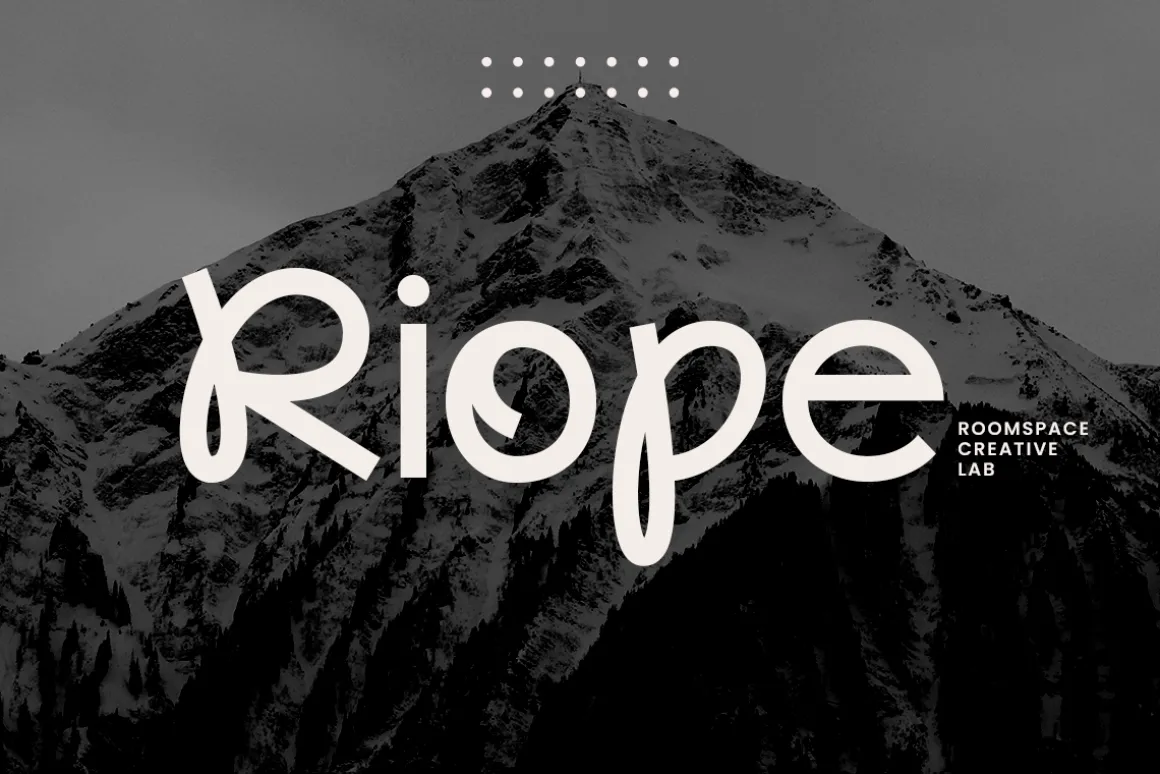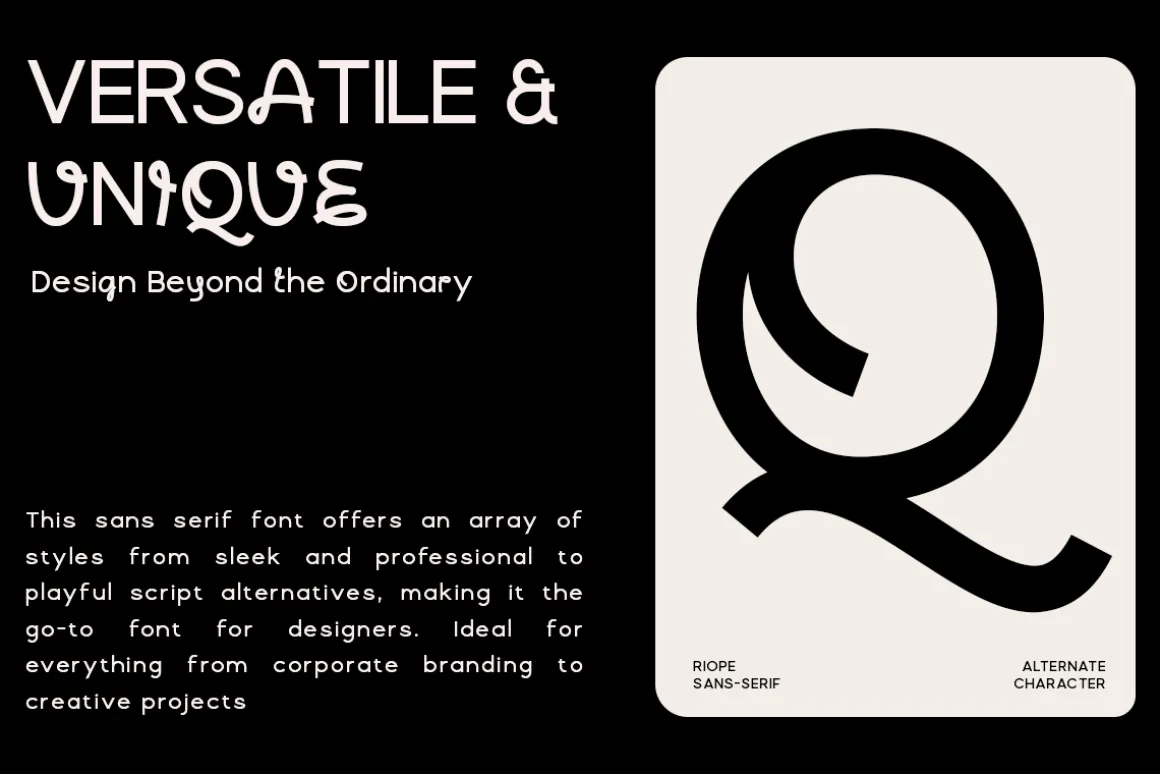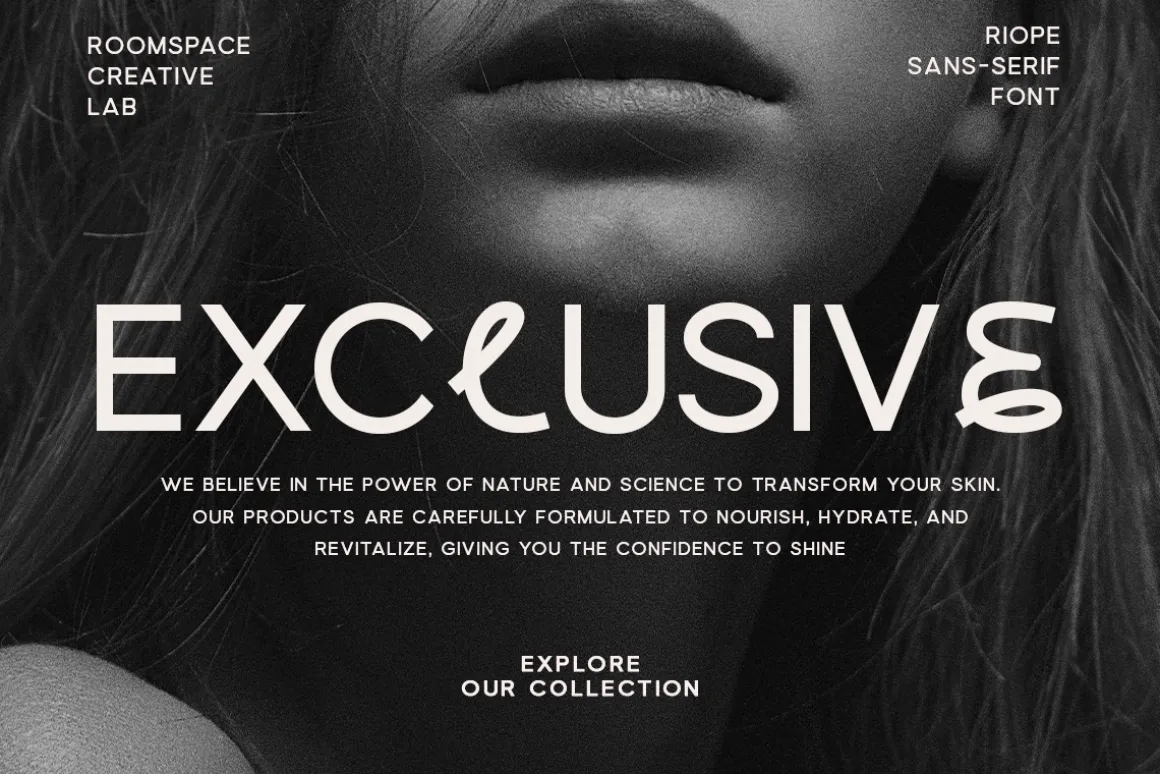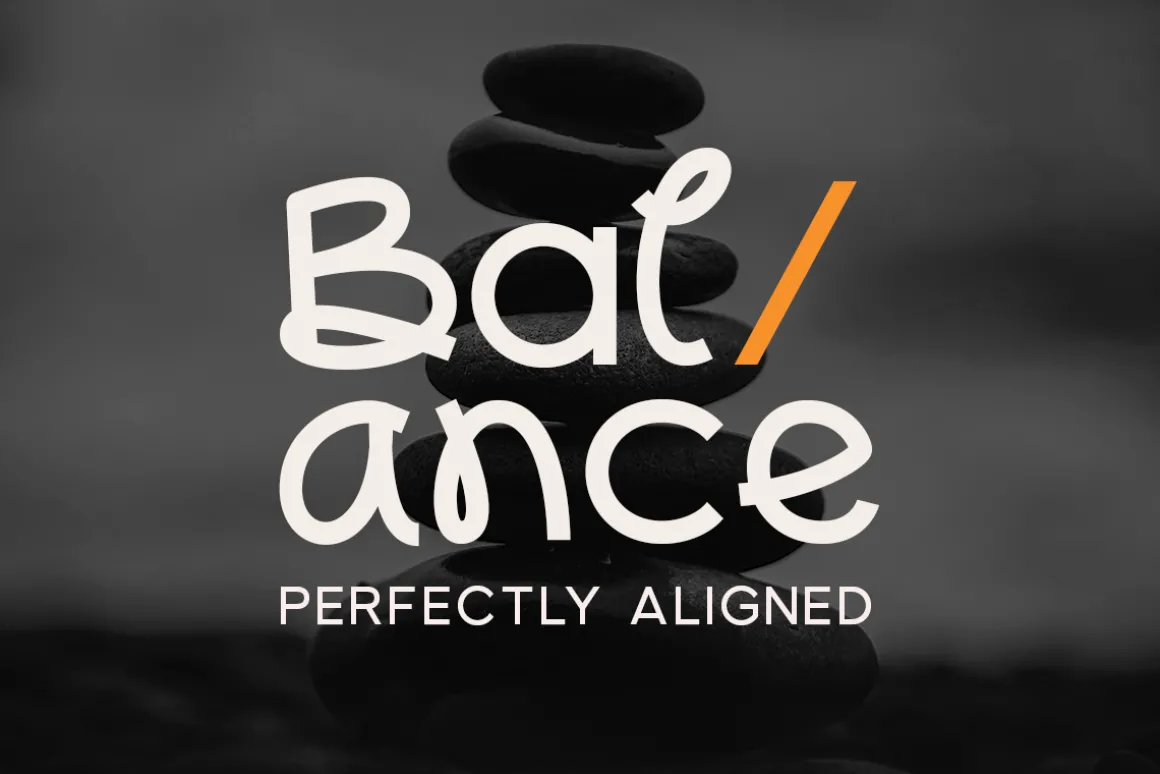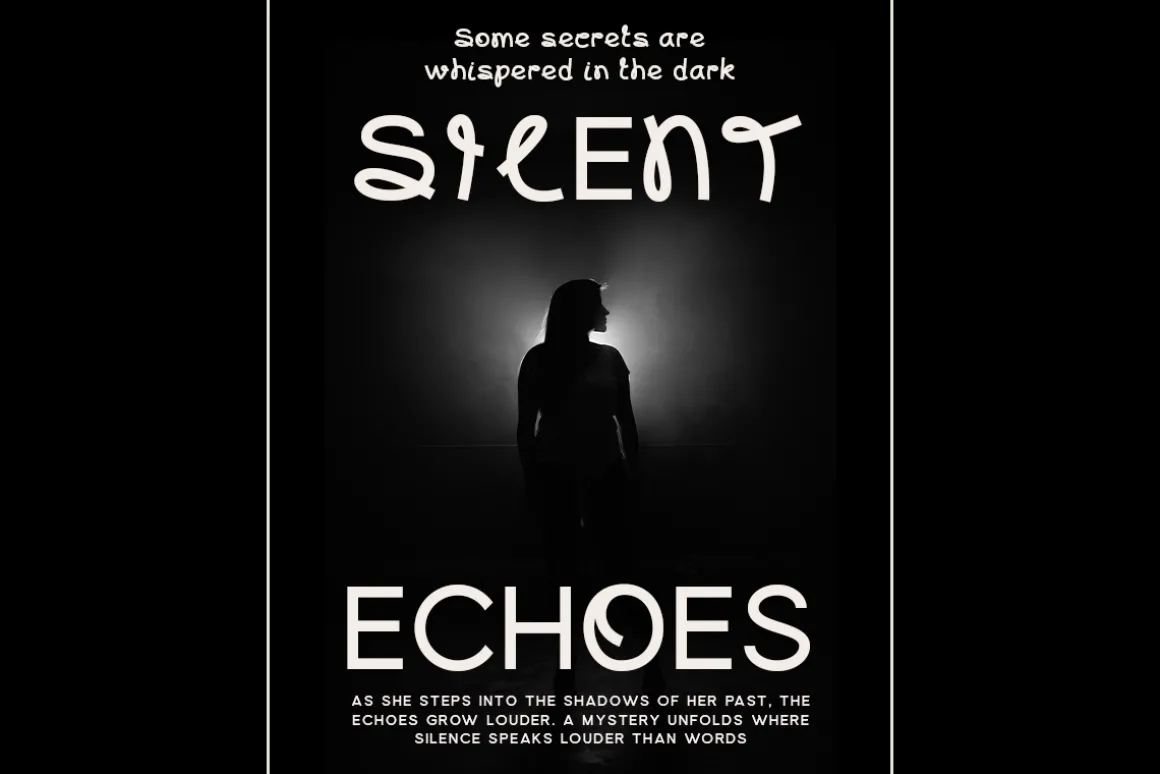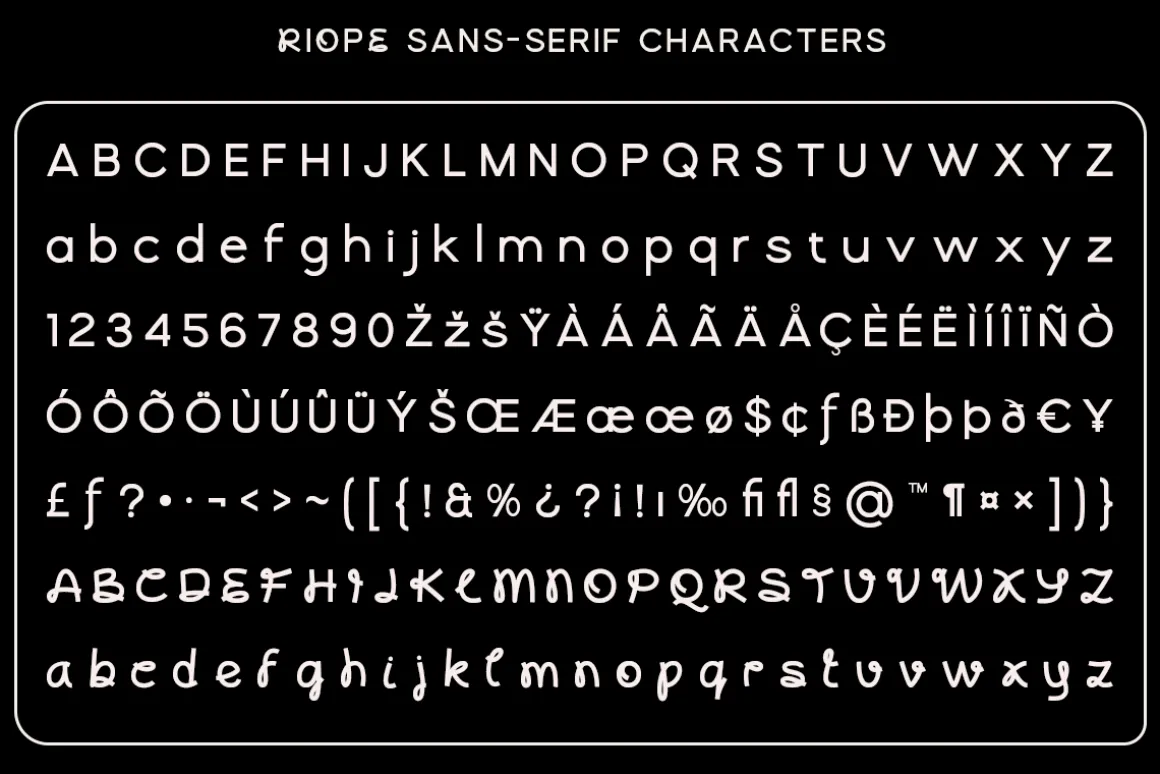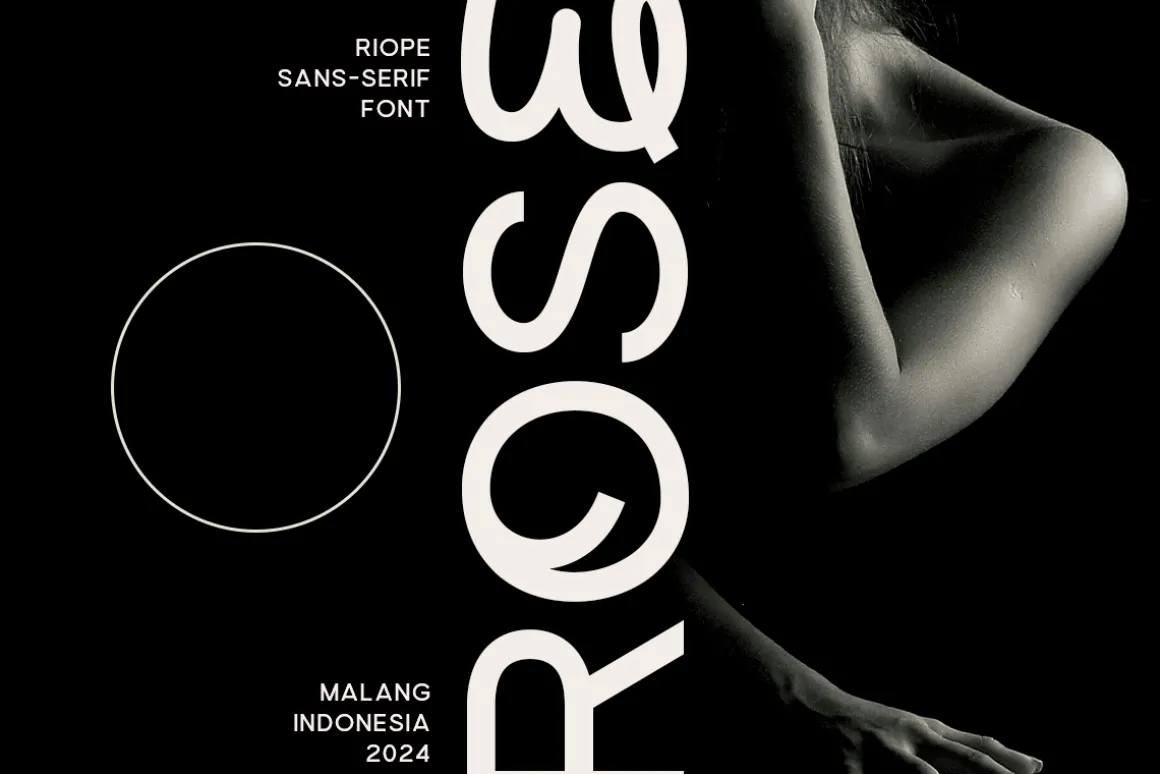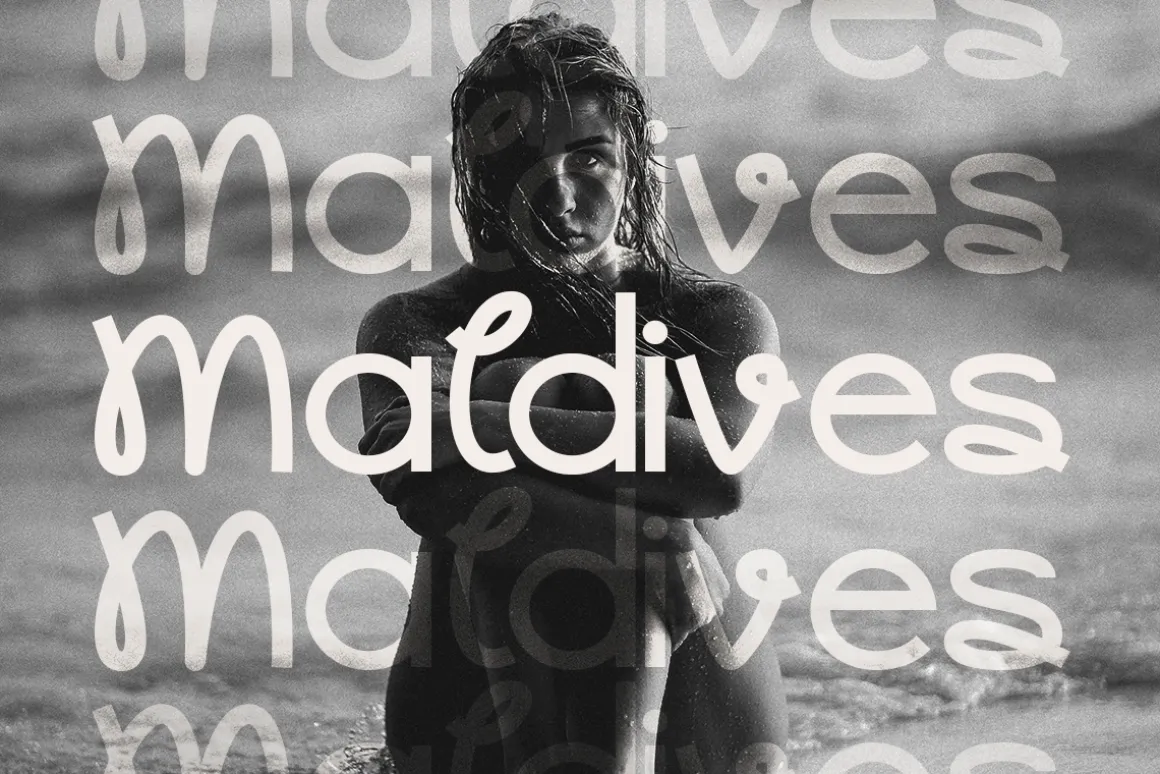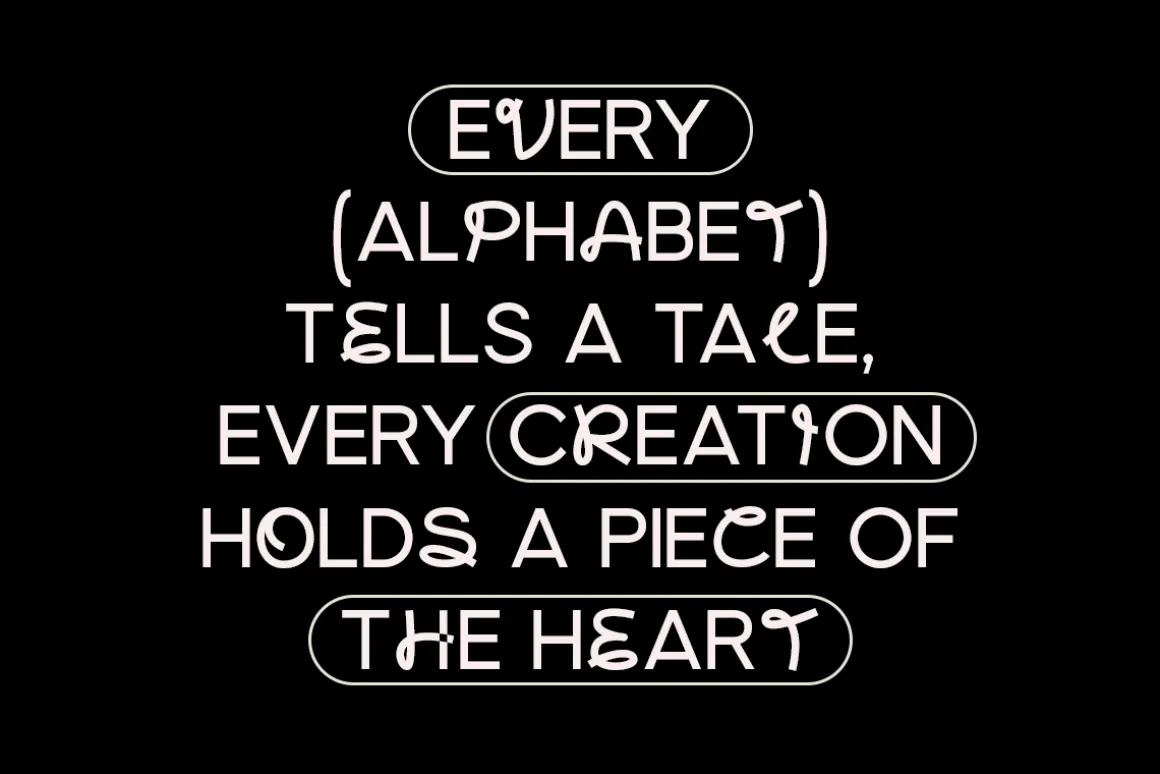
Riope modern sans serif font designed to deliver perfect letter balance. Riope offers a creative and unique touch with its alternate characters inspired by monoline scripts, all while maintaining high readability. With its modern futuristic style, Riope is versatile enough for various design applications like branding, logos, posters, or even packaging.
Riope provides exceptional flexibility with its modified character styles, bringing an innovative design experience. Whether you’re a designer or business owner, this font will elevate both the artistic and functional aspects of your projects.
Alternate Character
Uppercase & Lowercase
Numbers & Punctuation
Multilingual Support